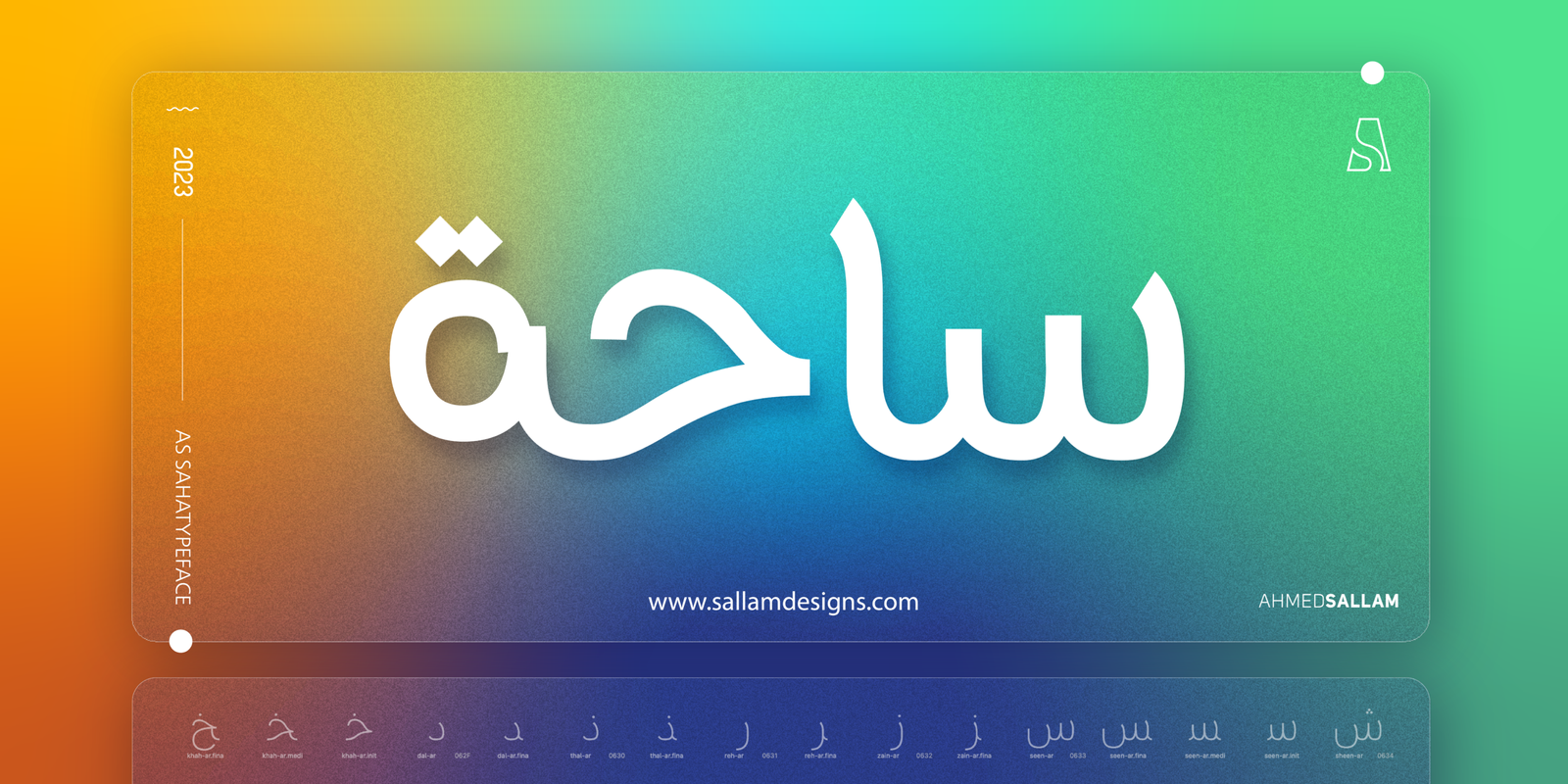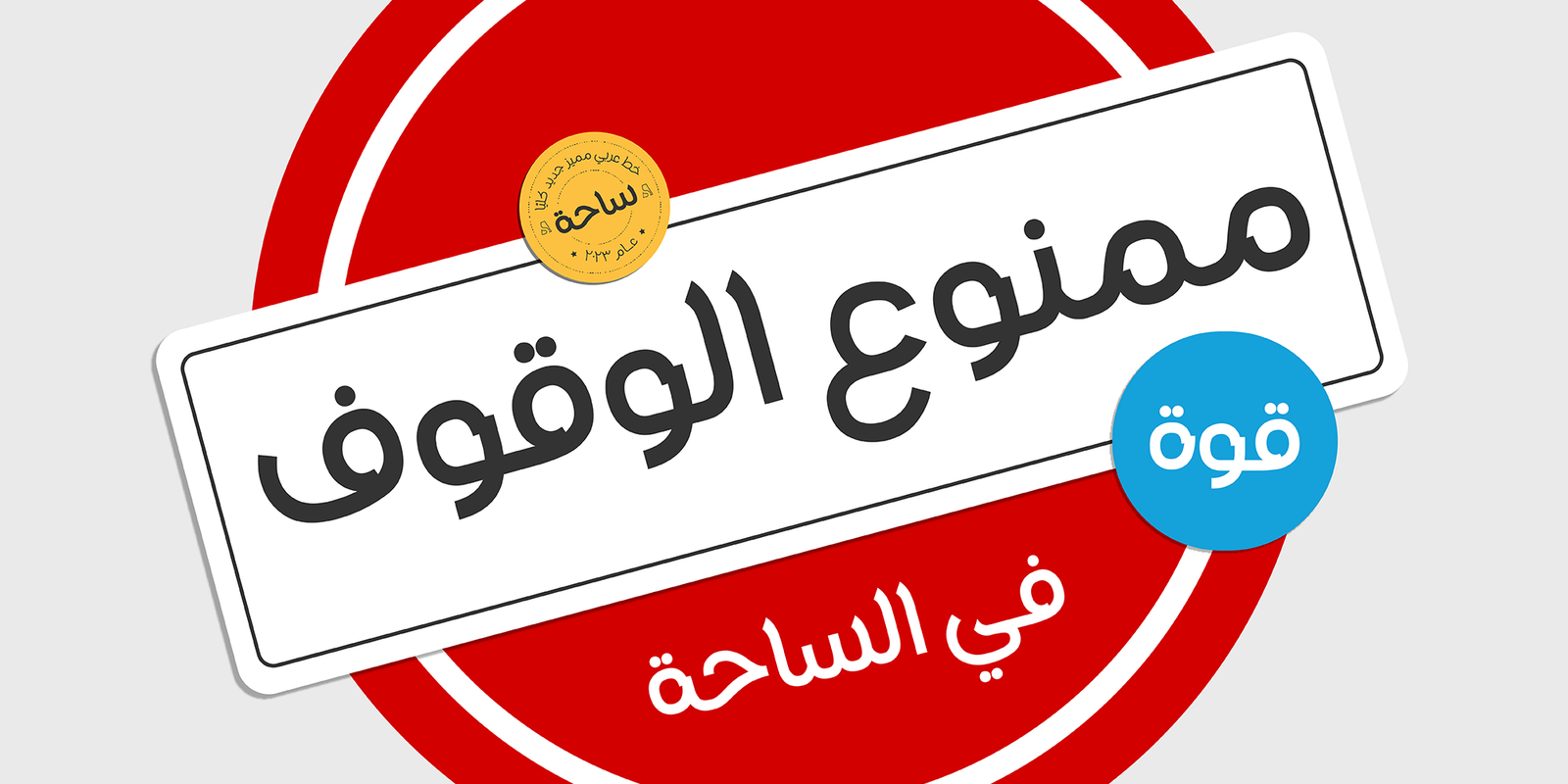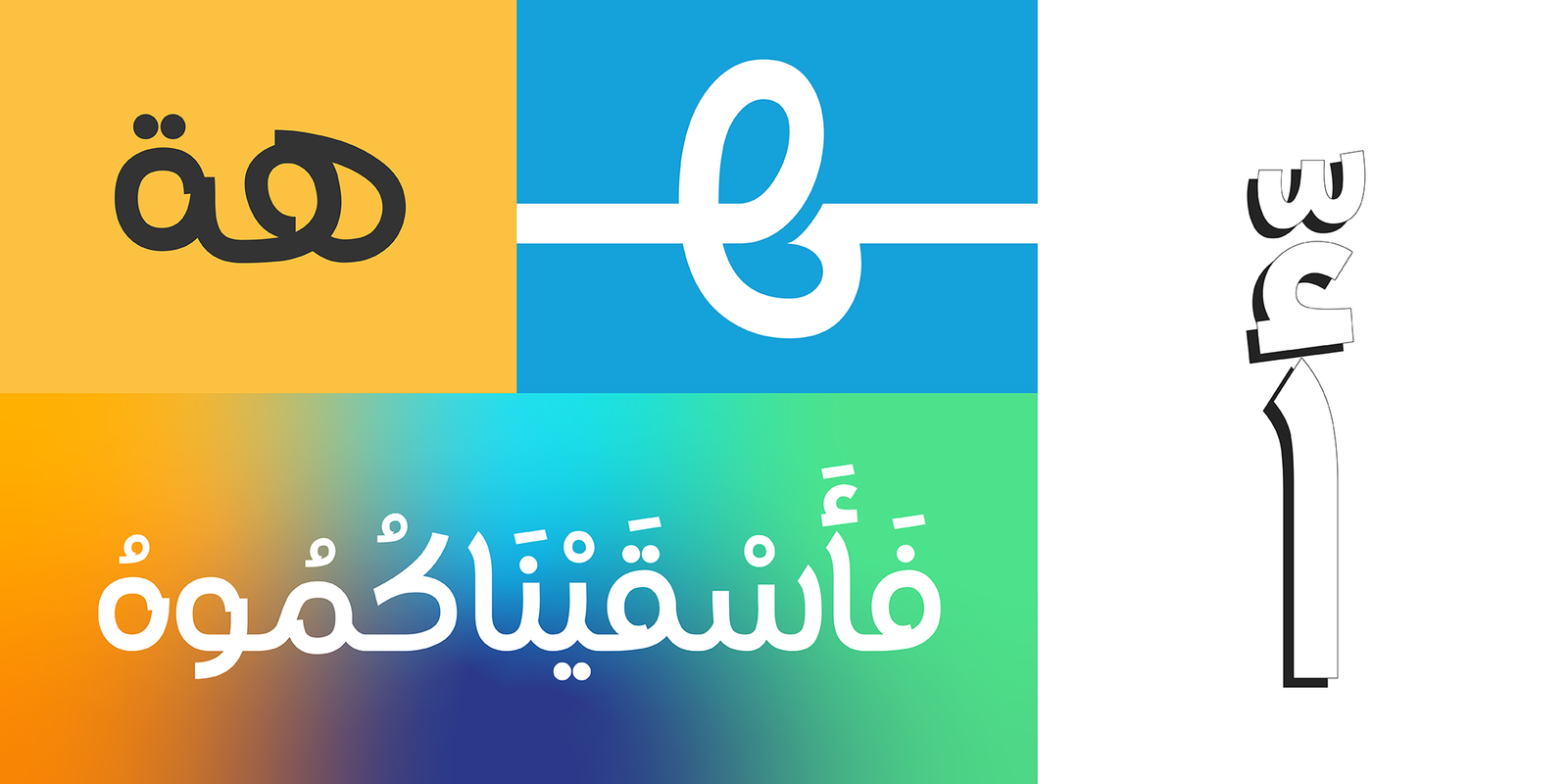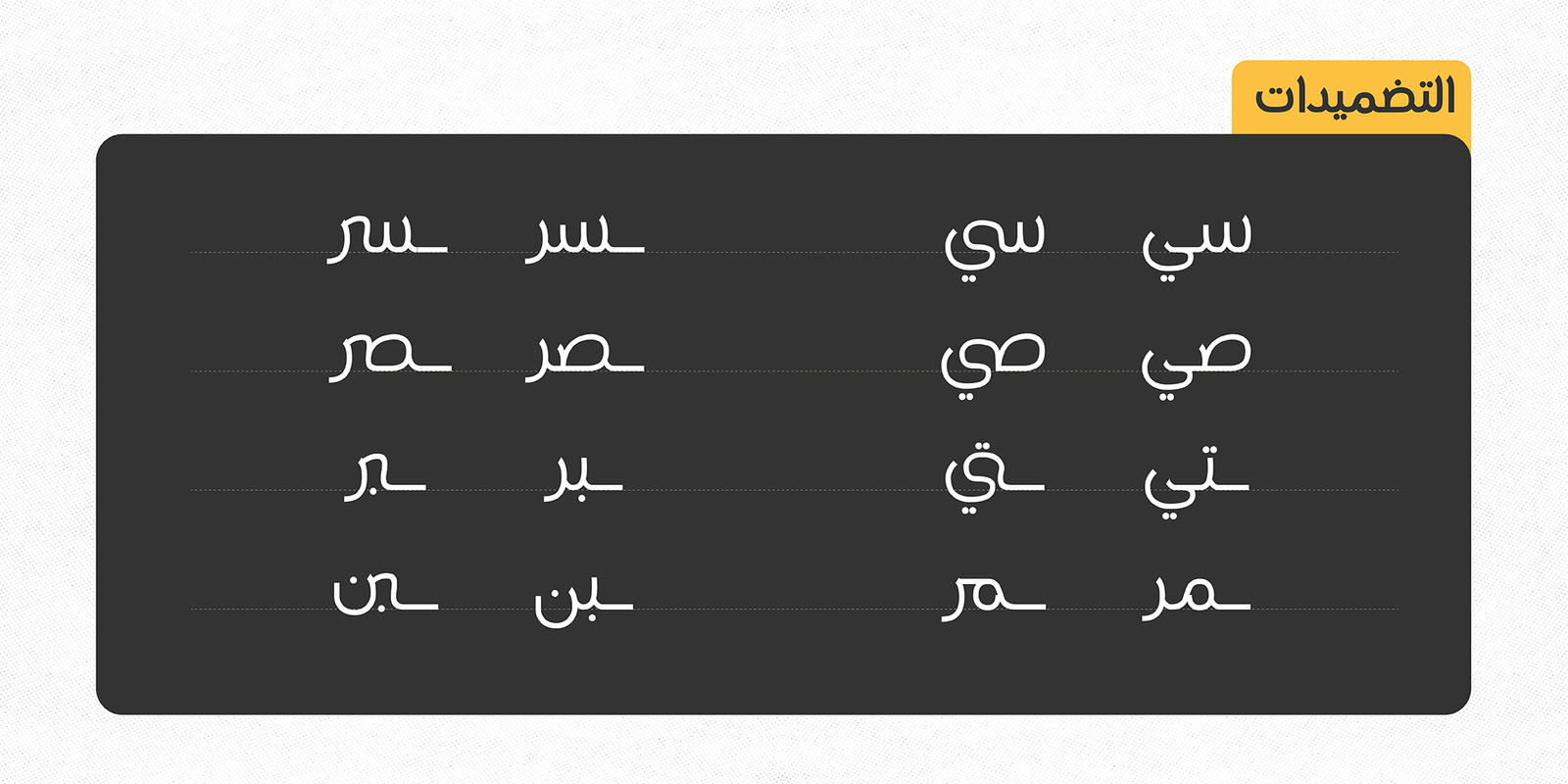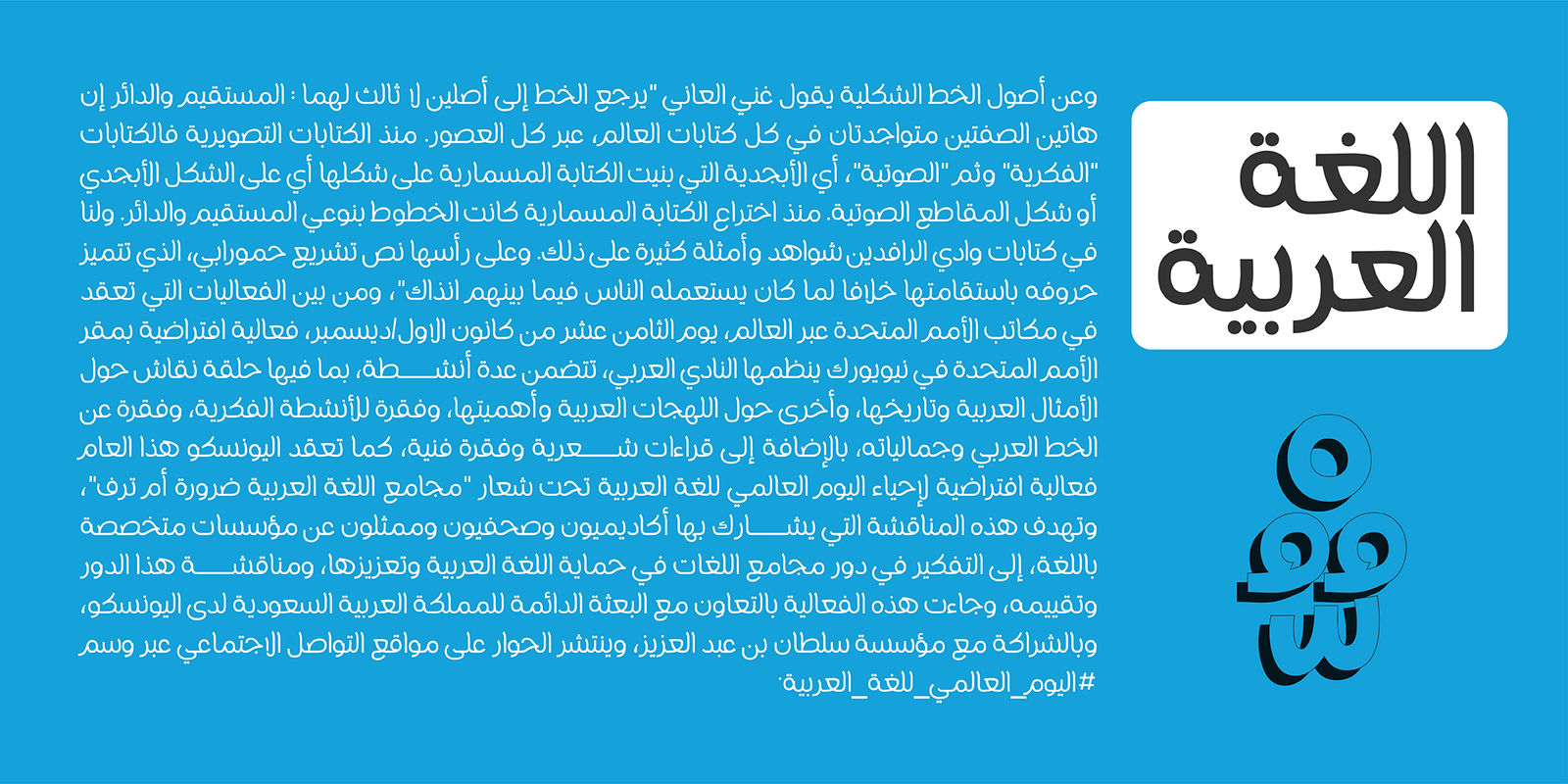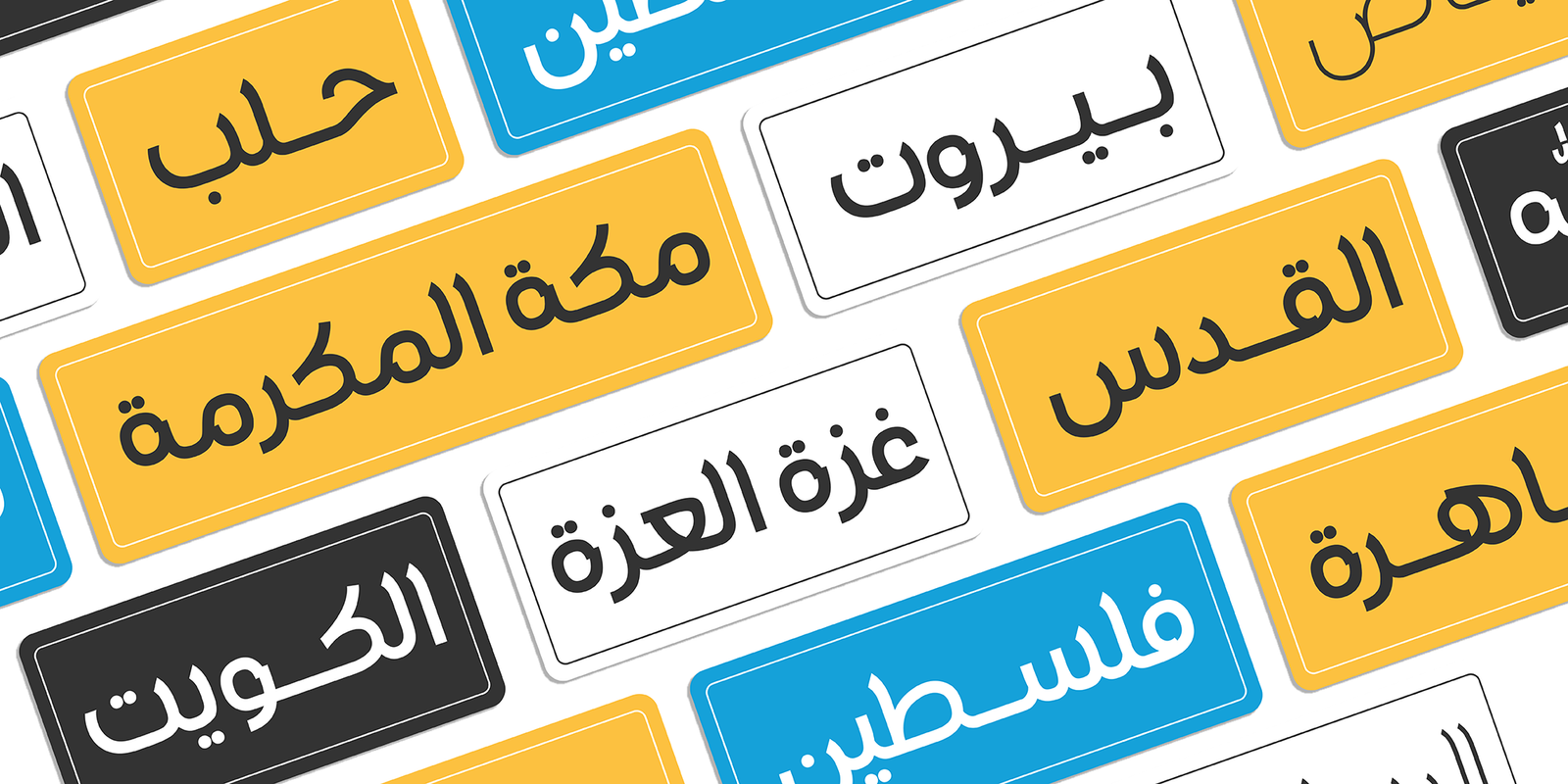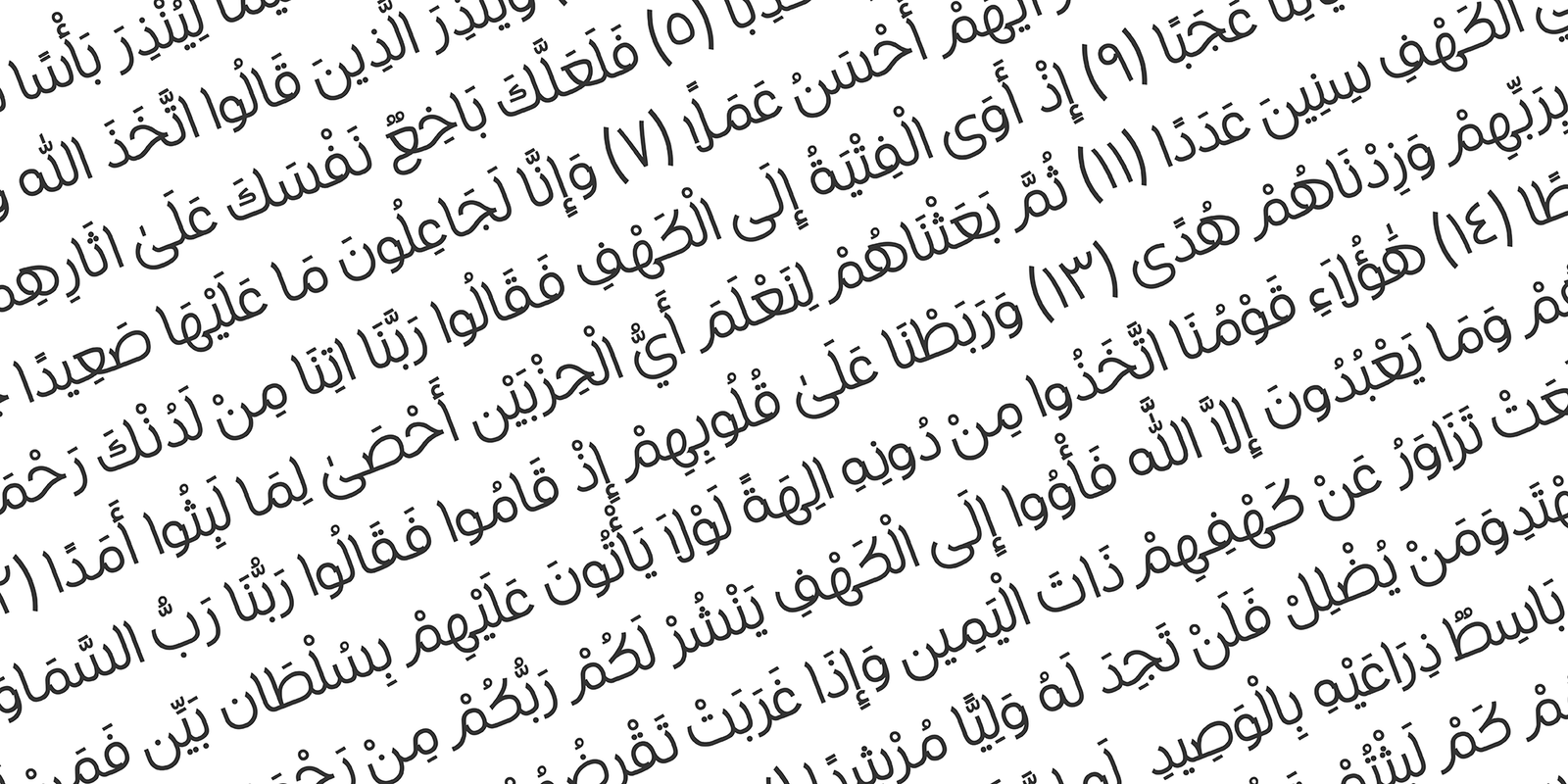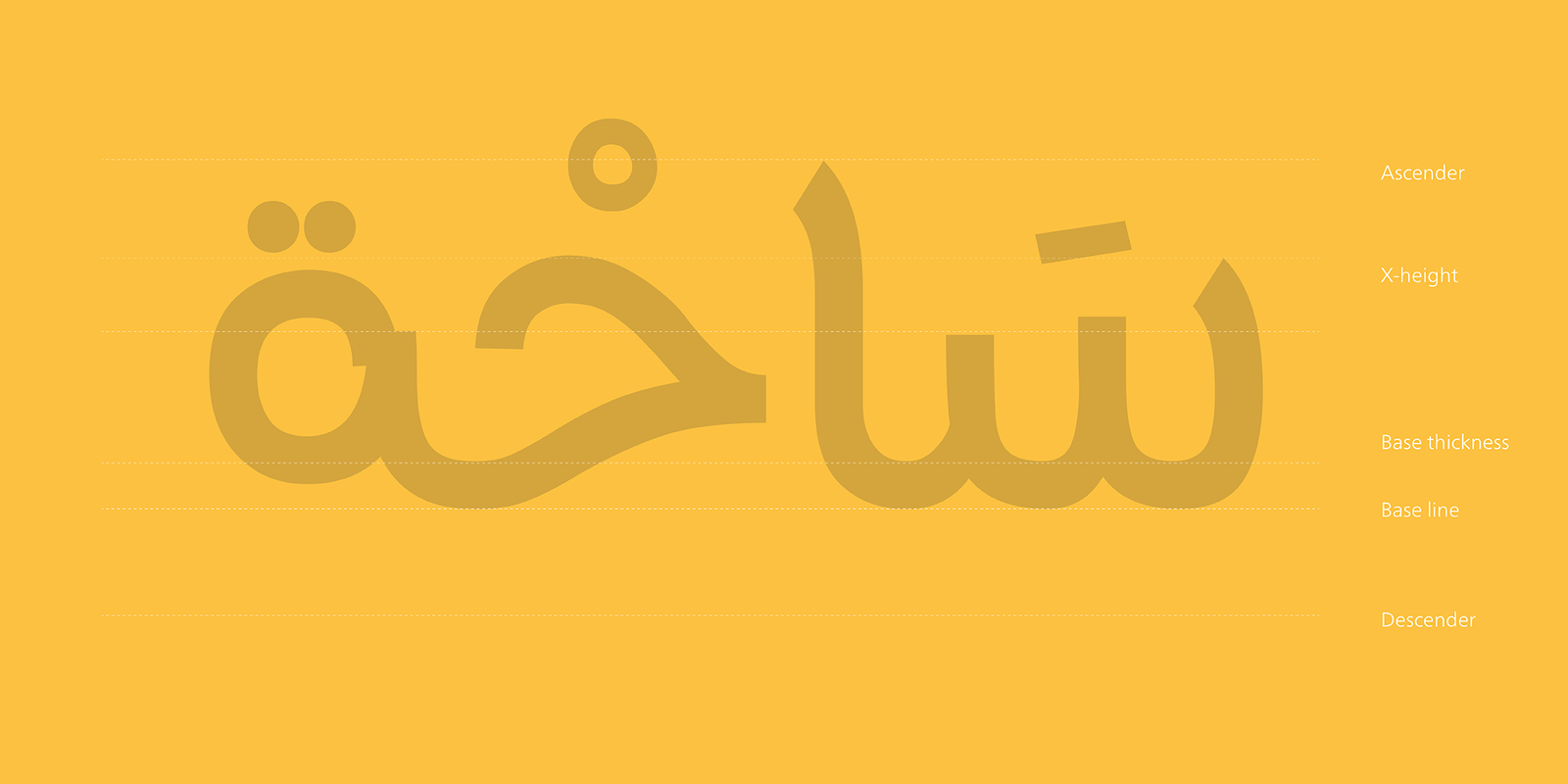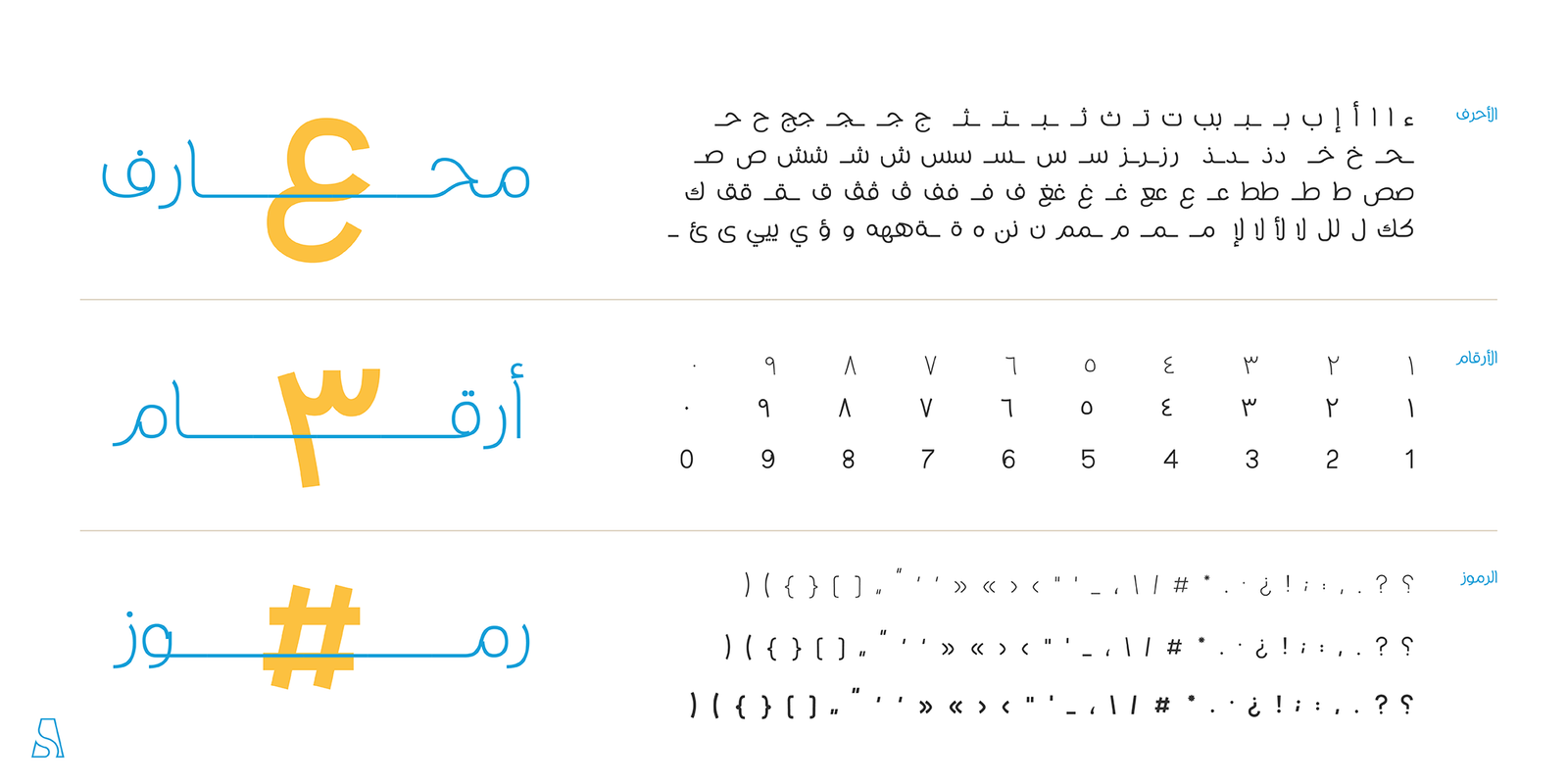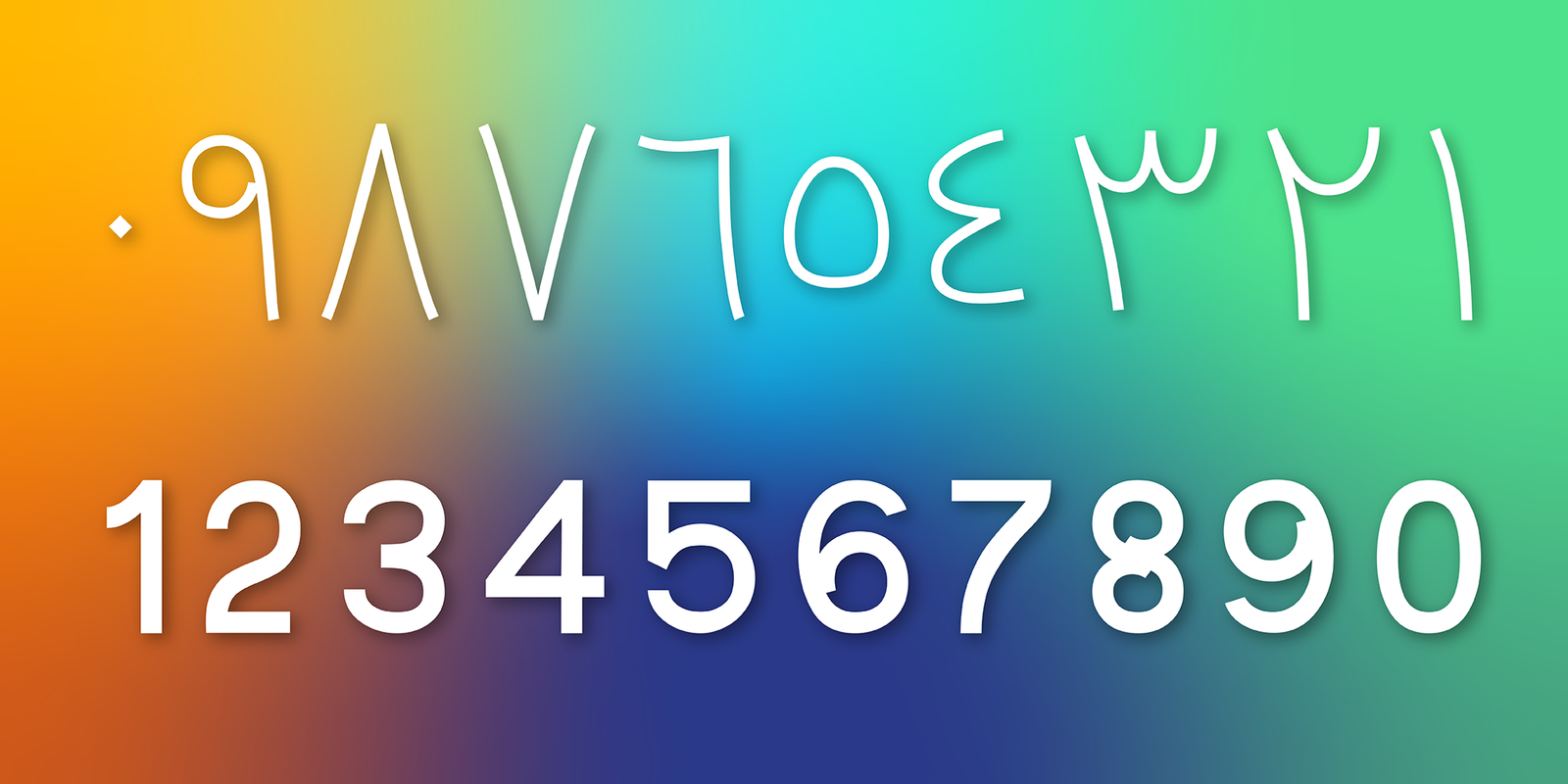
AS-SAHA
AS-SAHA is a contemporary geometric Arabic font, drawn and constructed carefully Font design is inspired by the calligraphic style.
AS-SAHA Its structure is equal and visually controlled. Character forms are a combination of vertical straight lines that integrate visually with soft angles in some areas. This makes it a line of nature suitable for today’s technological and visual development. The variations and weights of this font are suitable to use companies in their names and appearance, and also suitable with the titles and logos and is also used in all the requirements of advertising and long texts, use in headlines, logotypes, branding, books, magazines, motion graphics, web.
AS-SAHA consists of 6-weight versions from Thin to Bold.